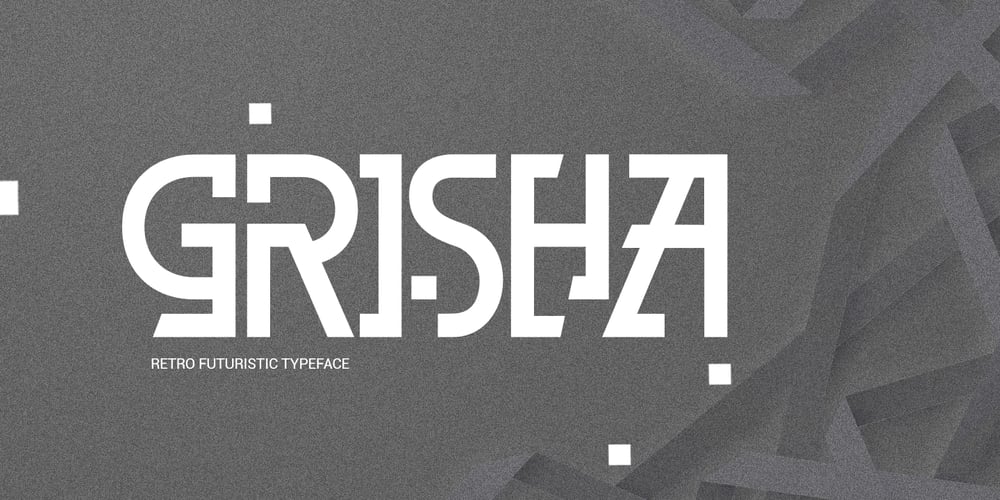
Grisha
Grisha font
Grisha Font Family was designed by Jarnawi Saja and published by Grontype. Grisha contains 1 styles and family package options. Grisha is a futuristic and modern retro look. Each uppercase and lowercase letter has its own characteristics, plus some alternates and ligatures. This font is bold and tight kerning, very suitable for your design projects such logo tagline, logotype, name card, flyers invitation, magazine header etc. Features: Uppercase glyphs Lowercase glyphs Numeral and Punctuations Standard Ligatures Stylistic Alternates Thankyou for choosing this fontRegard, Grontype